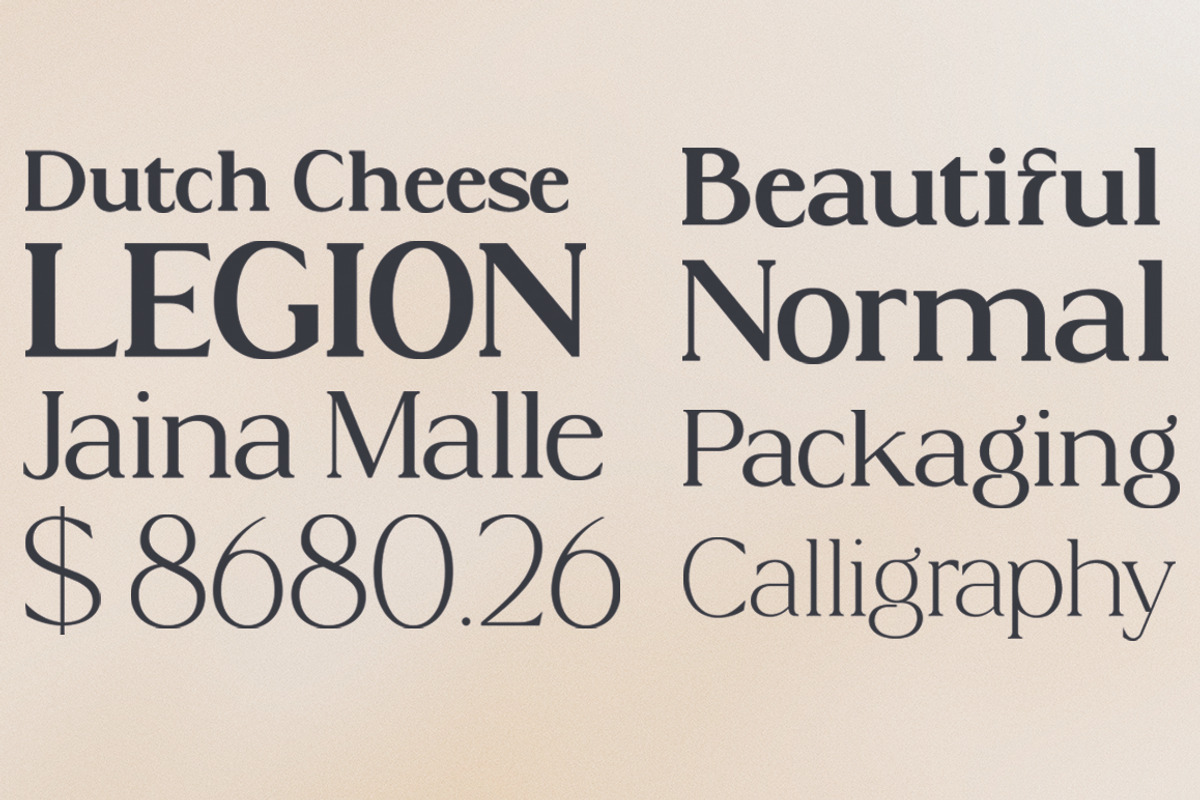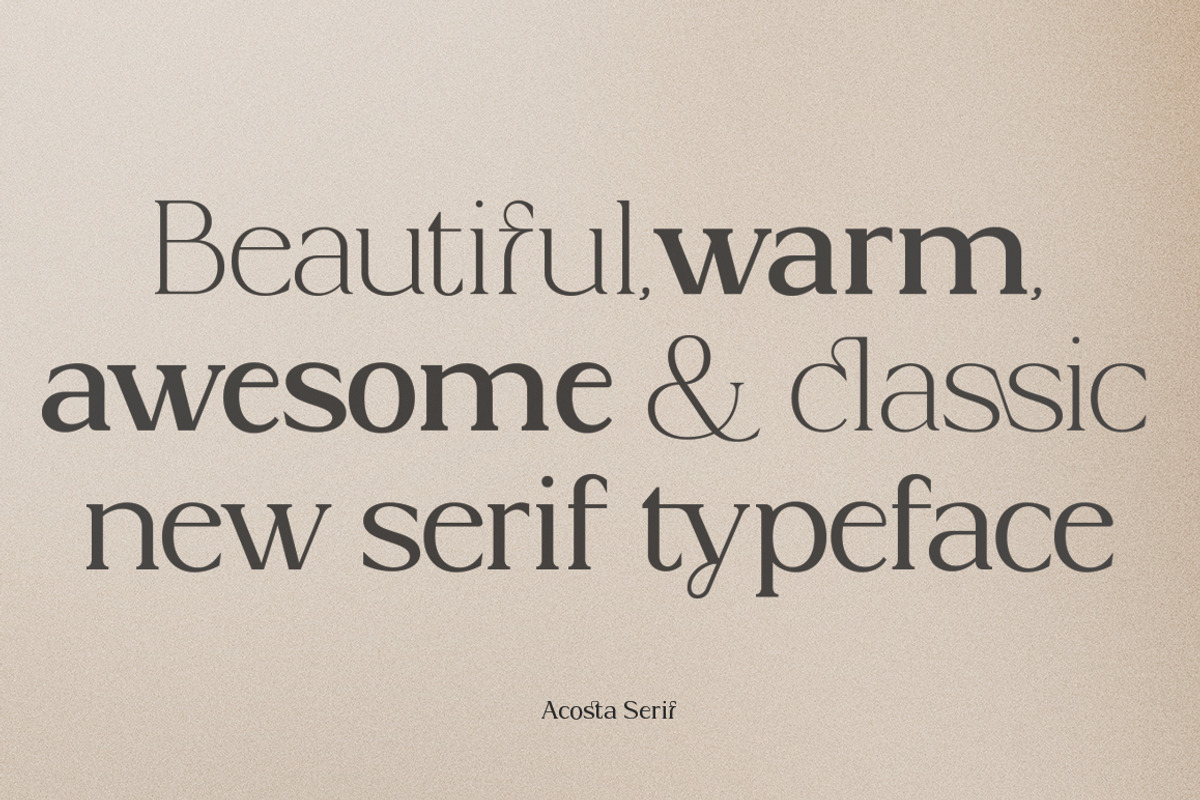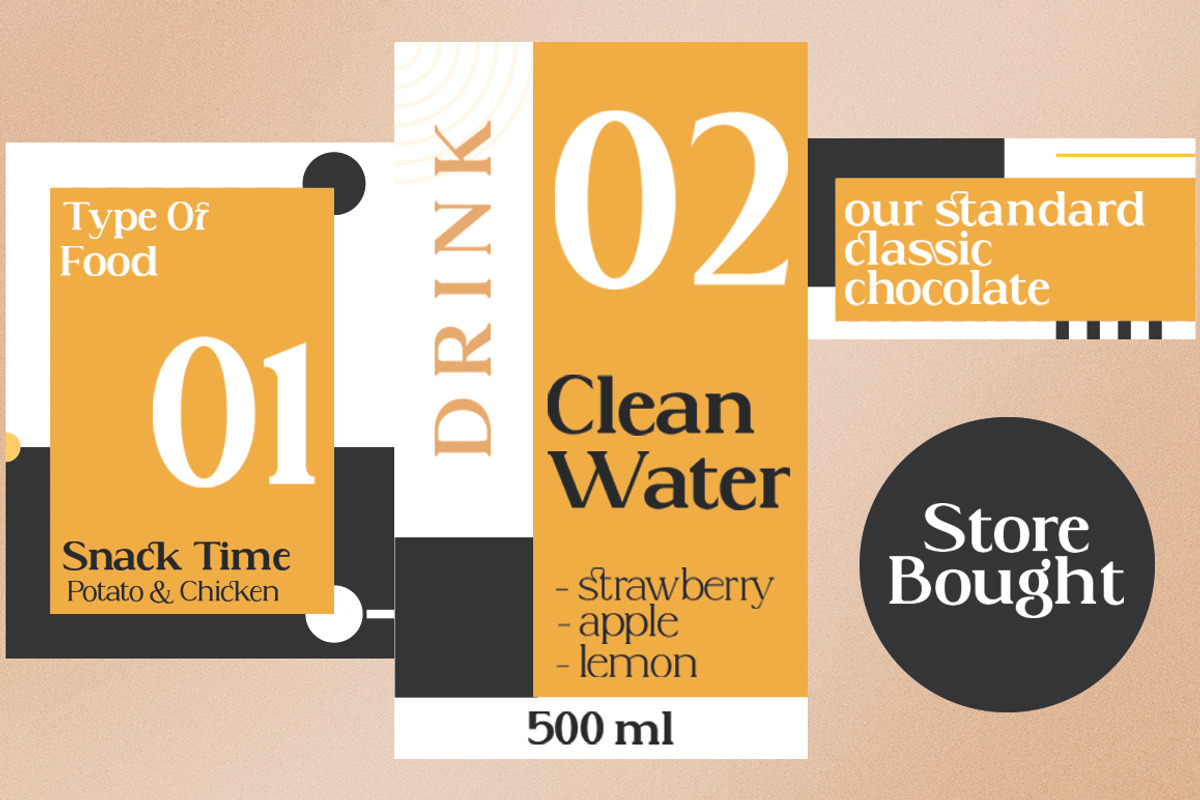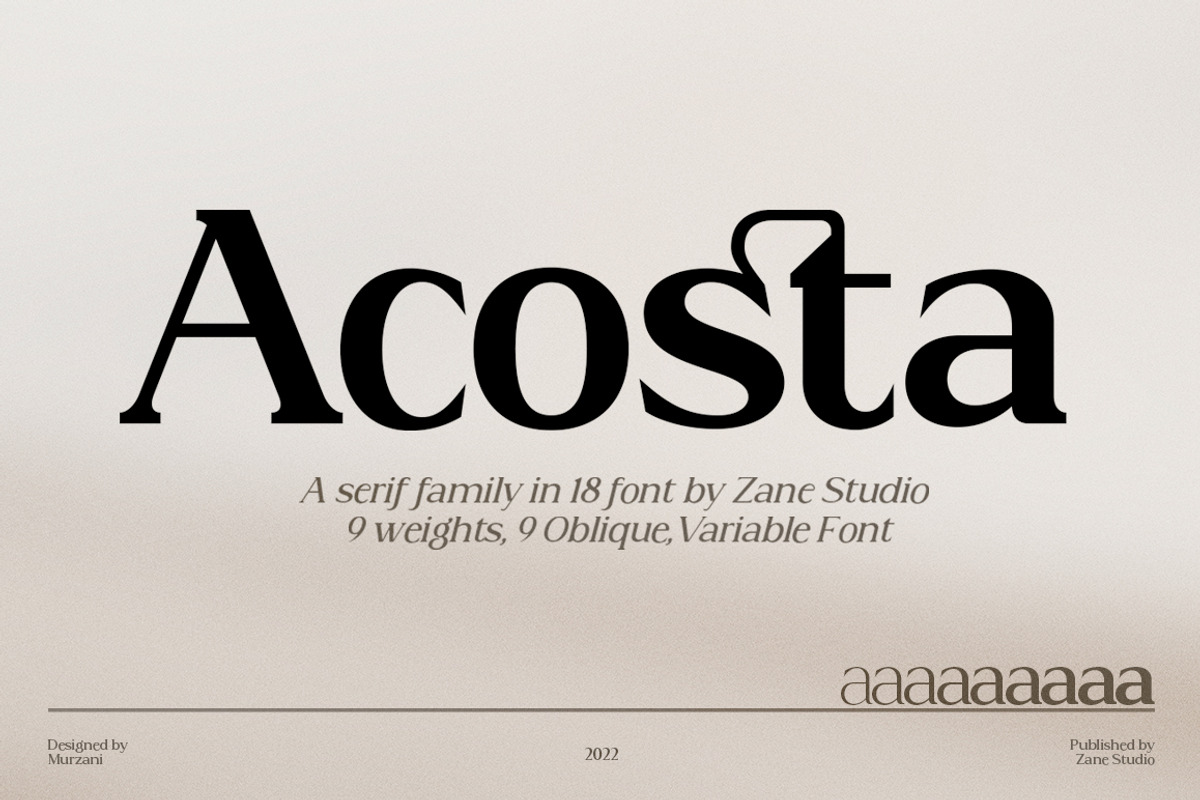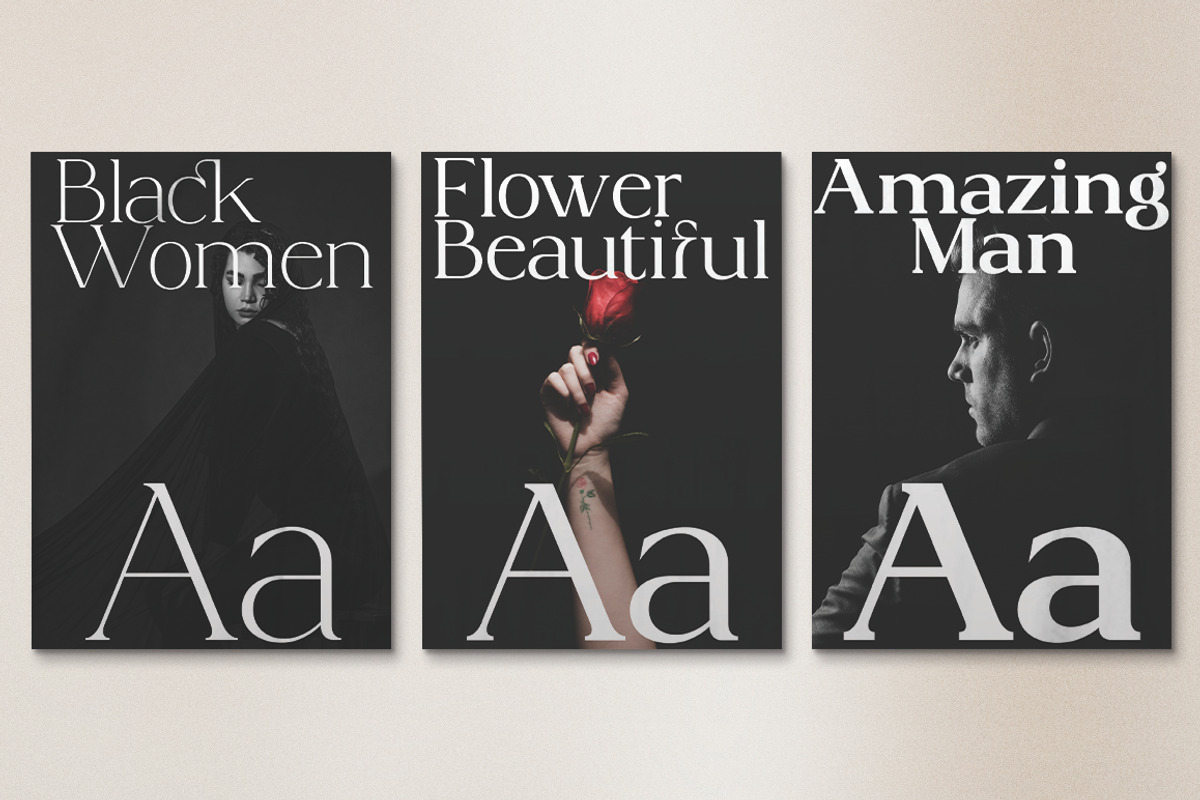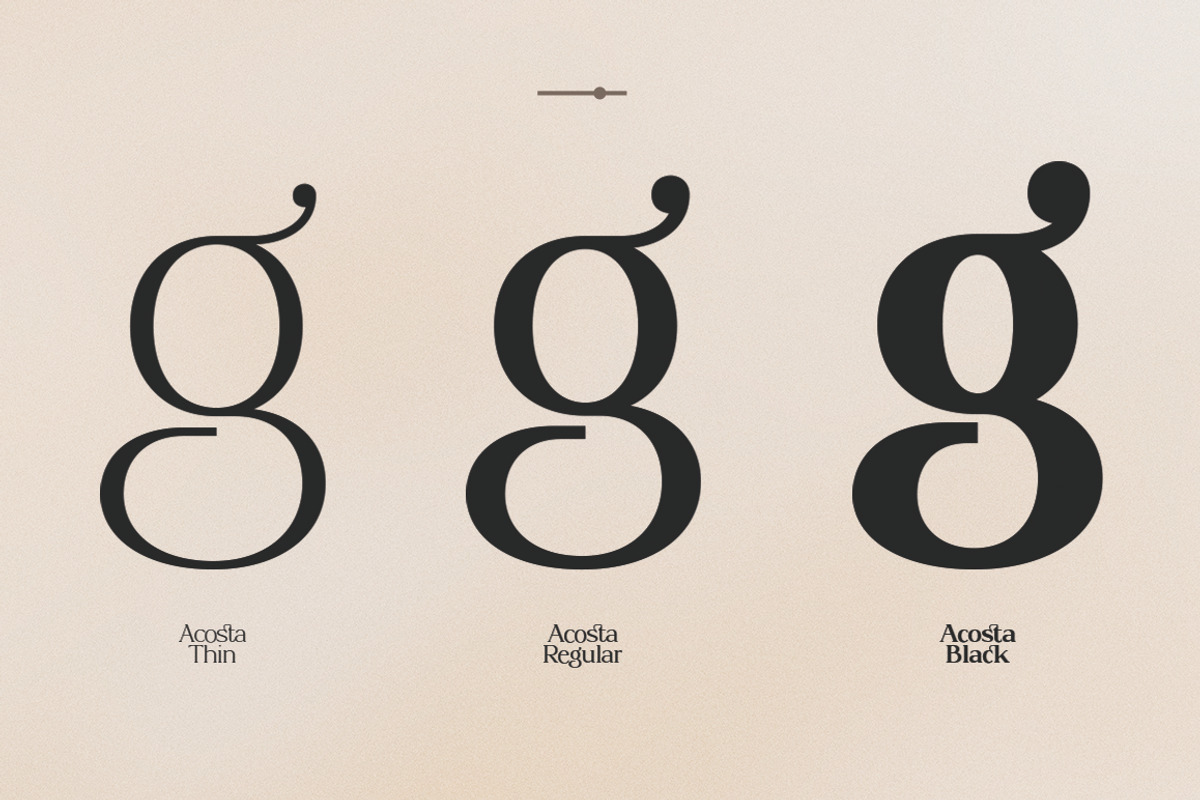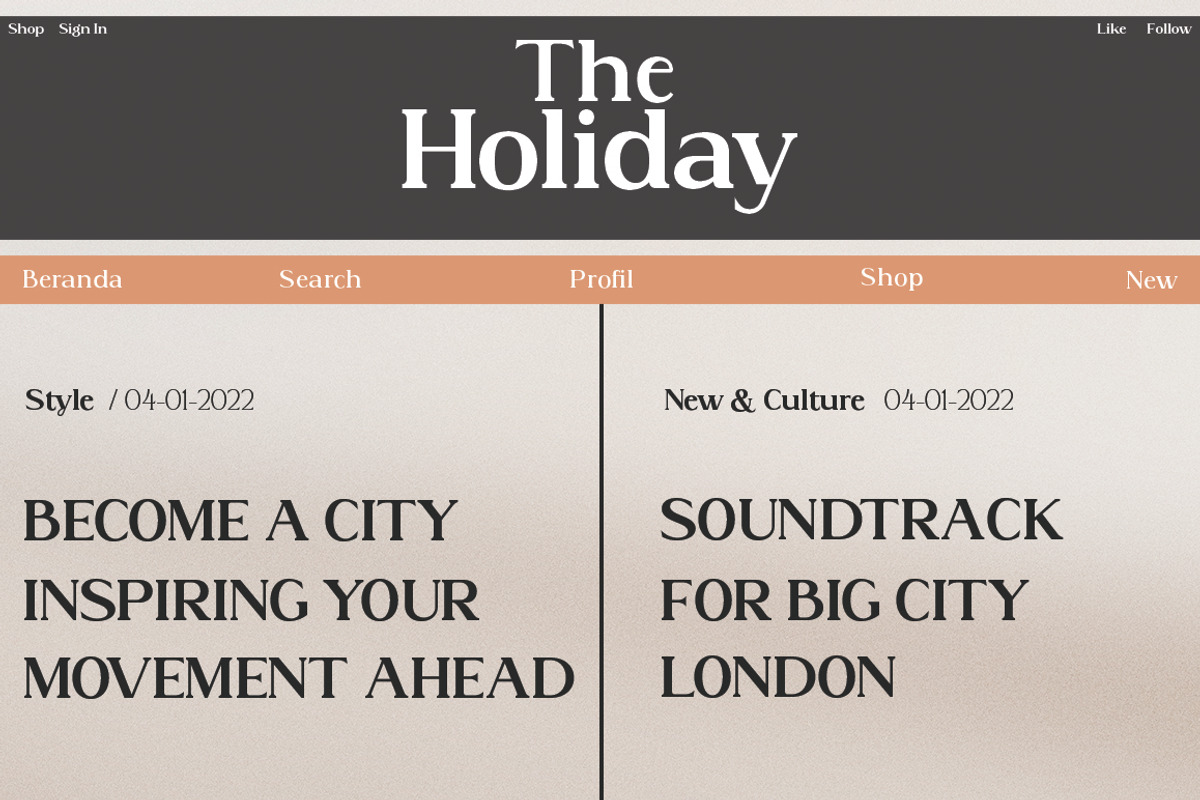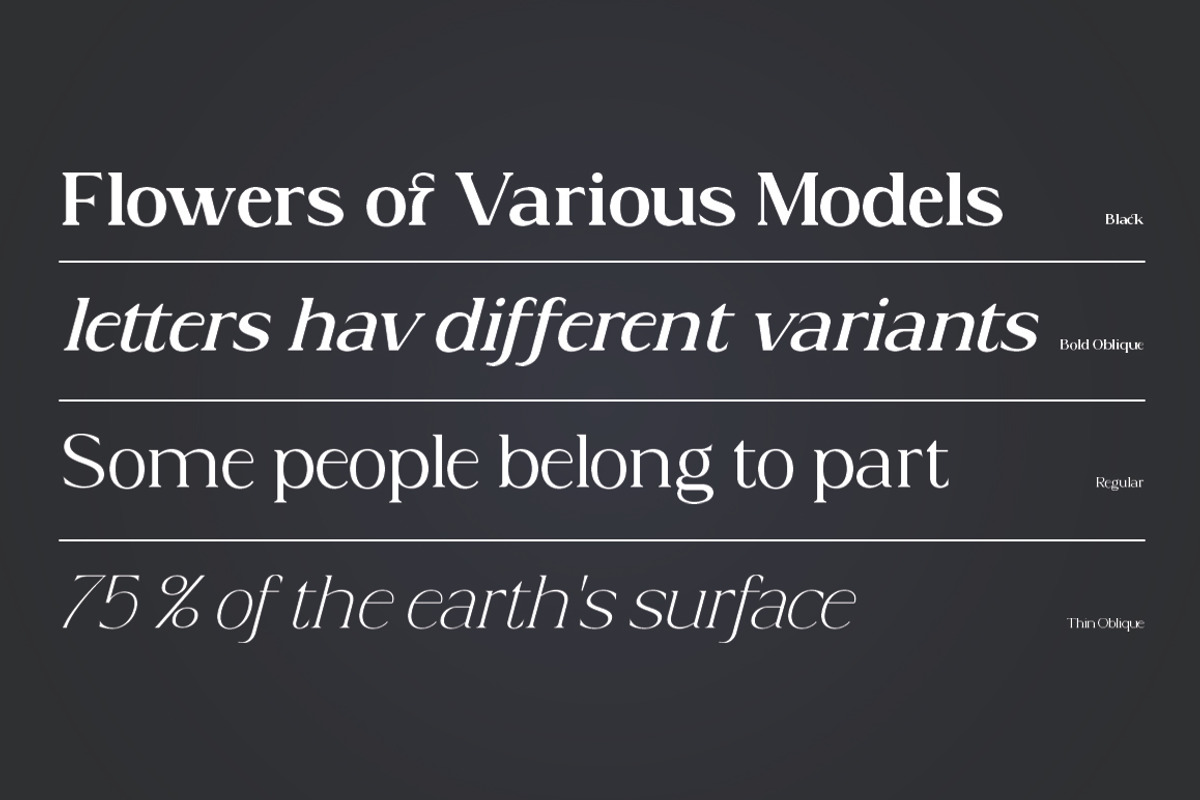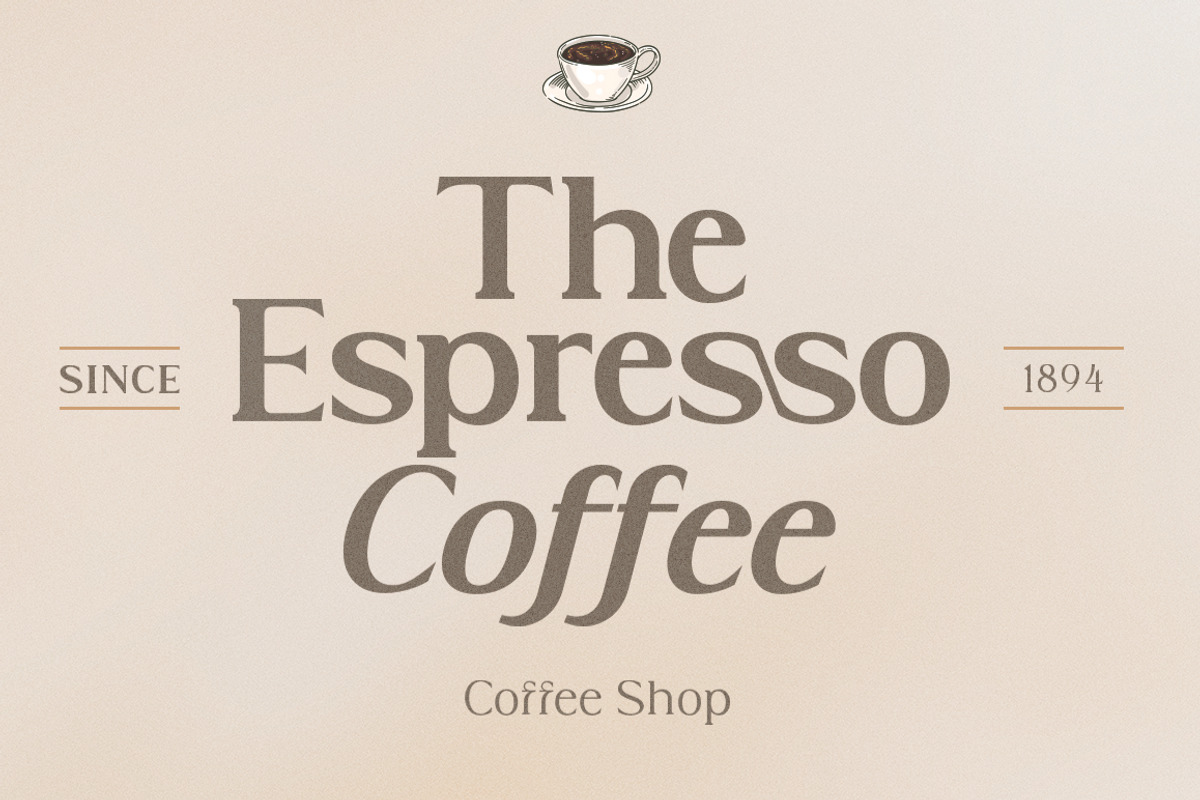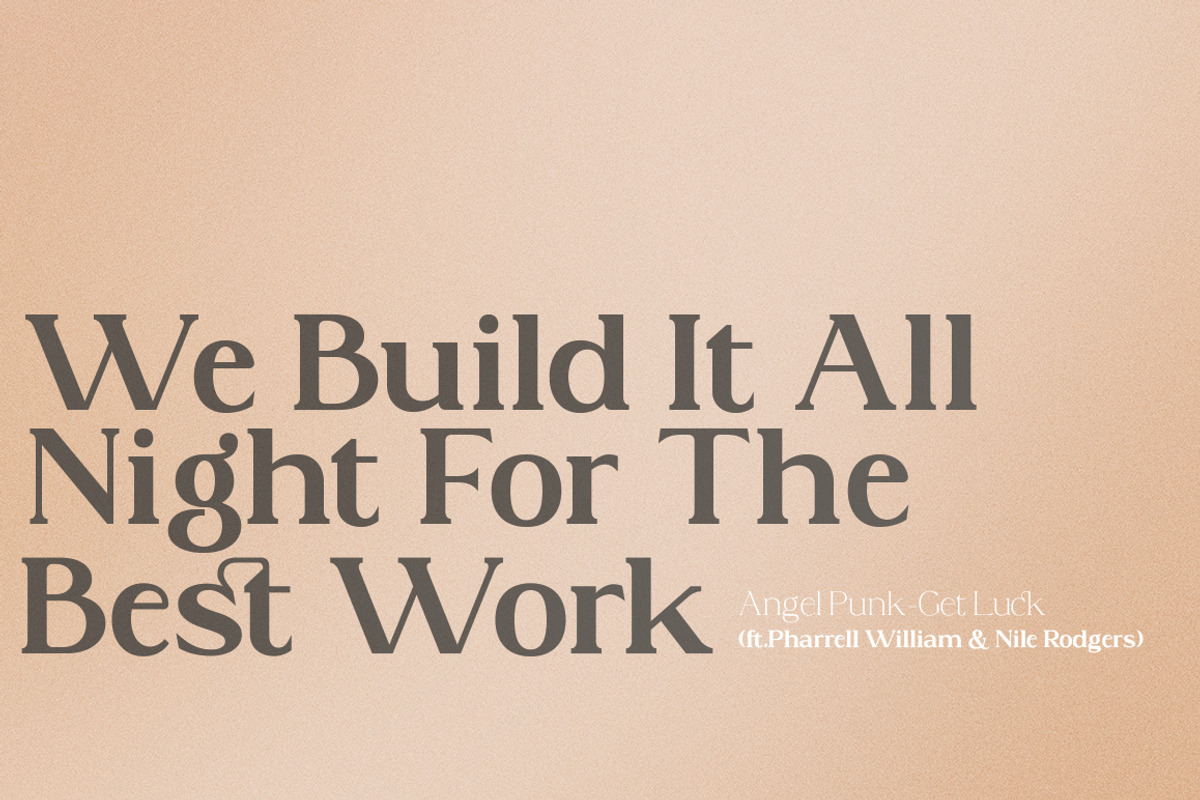
Acosta - Serif Font Family
Acosta is a serif typeface with high contrast and a refreshing look.
From sheer to black with italics, Acosta offers many possibilities for application in many graphic or editorial projects. The lighter weight is suitable for short paragraphs, and the heavier weight is suitable for headlines, perfect for display purposes such as branding, book covers, and web titles.